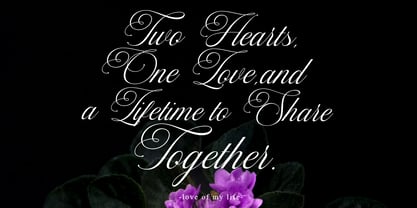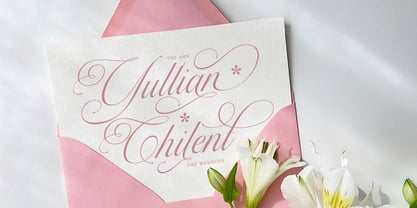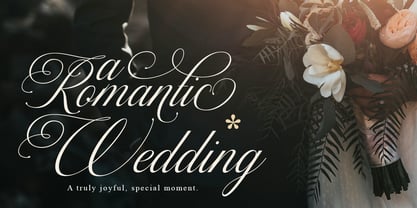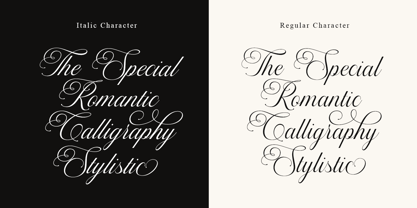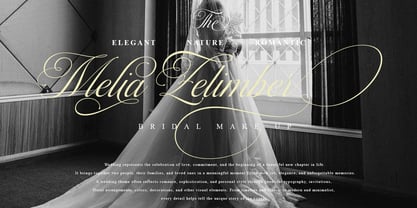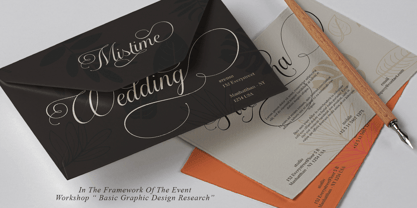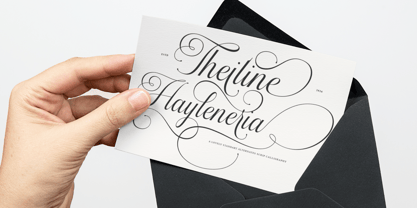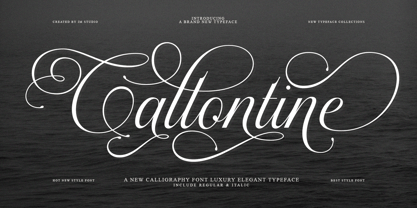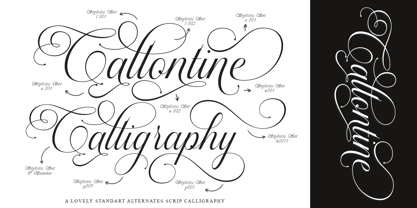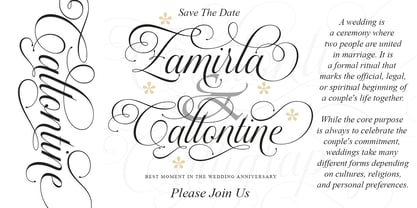
Callontine
by IM Studio
The Callontine Font Family was designed by Ikhsan Maulana and published by IM Studio. Callontine contains 2 styles and family package options. More about this family
Callontine is an elegant, decorative script font inspired by the timeless beauty of classic Copperplate calligraphy, yet refined with a modern, sophisticated touch. Crafted with meticulous attention to detail, this font blends graceful curves, fluid connections, and expressive letterforms to create a luxurious look that remains highly readable.
Designed to evoke a feminine, romantic, glamorous, and elegant feel, Callontine lends a unique character to every design. Its beautiful ligatures and wide range of stylistic alternates allow you to create unique typographic compositions with a natural, handwritten feel and a high-end editorial aesthetic.
It is perfect for wedding invitations, save-the-date cards, logos, branding, fashion, beauty, stationery, greeting cards, menus, packaging, labels, editorial design, social media graphics, and luxury product advertising. Whether used for elegant headlines or sophisticated brand identities, Callontine adds a graceful, memorable touch to your creative projects.